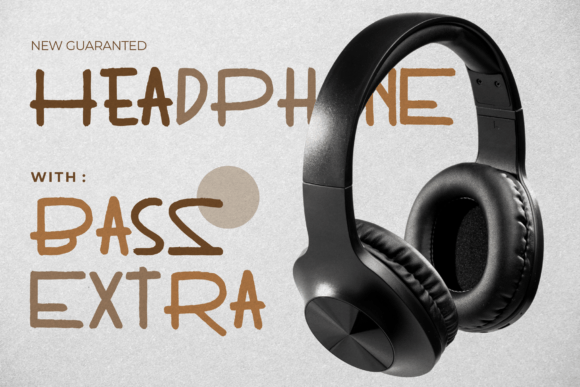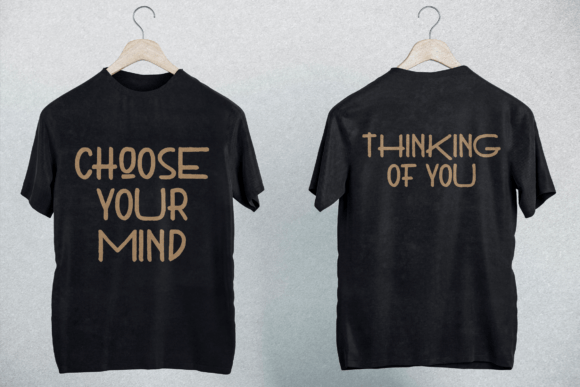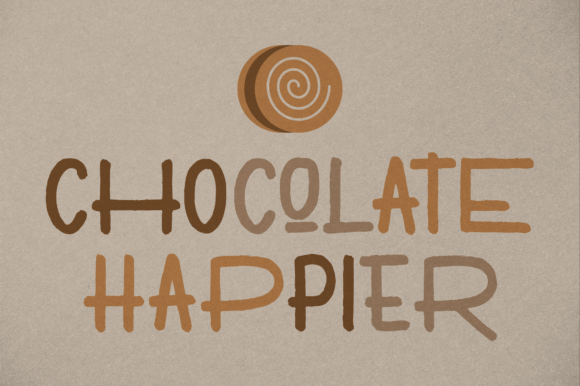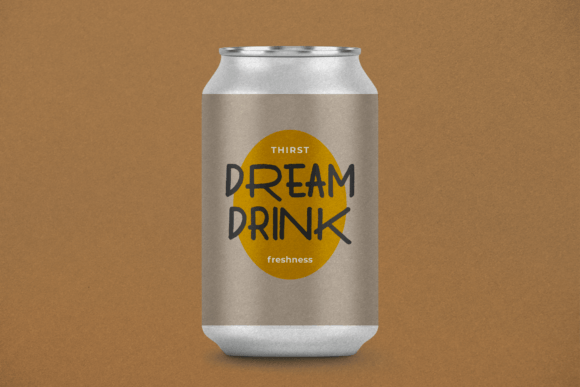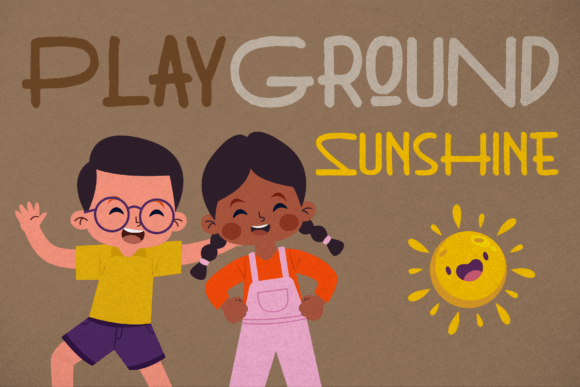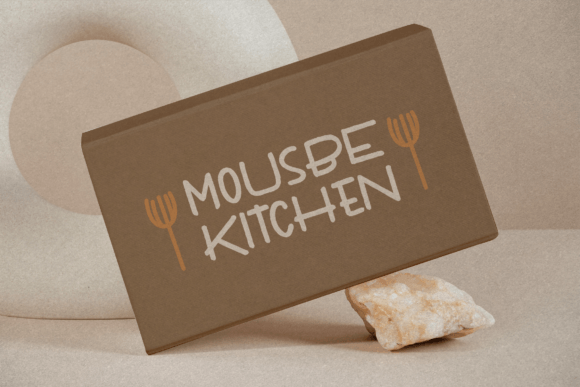
The Ultimate Guide to Choorse Fun Font: Adding a Touch of Whimsy to Your Designs
Have you ever been in the middle of a design project, and suddenly, you’re stuck on finding the perfect font? I recall a particularly frustrating experience while working on a branding project for a trendy new coffee shop. The client wanted a font that was both playful and sophisticated, but everything I tried seemed to fall flat. That’s when I stumbled upon the Choorse Fun Font, and it completely transformed my design. In this article, we’ll dive into the world of Choorse Fun – Rough Sans Serif Display, and explore its features, uses, and alternatives.
An Honest Review of Choorse Fun Font
So, what makes Choorse Fun Font so special? Let’s take a closer look.
What I Love About Choorse Fun Font
- ✨ Unique and quirky personality: Choorse Fun Font has a distinct rough sans serif display style that adds a touch of whimsy to any design.
- ✅ Highly versatile: This font is suitable for a wide range of projects, from logos and branding to homeware designs, product packaging, and more.
- 🎨 Great for creative freedom: With its rough texture and irregular shapes, Choorse Fun Font gives you the flexibility to experiment with different design styles.
While Choorse Fun Font is an excellent choice for many projects, there are a few things to keep in mind:
- ⚠️ Legibility at small sizes: Due to its rough texture, Choorse Fun Font may not be the best choice for body text or small font sizes.
- 🤔 Limited formal applications: This font is best suited for creative and informal projects; it may not be suitable for more formal or corporate designs.
The Backstory Behind Choorse Fun Font
While the origins of Choorse Fun Font are unclear, it’s likely that the designer was inspired by the world of street art and graffiti. The font’s rough texture and irregular shapes evoke a sense of playfulness and creativity.
| Author | Glorytype Studio |
Q: What type of projects is Choorse Fun Font best suited for?
A: Choorse Fun Font is perfect for creative projects like logos, branding, homeware designs, product packaging, and more.
Q: Can I use Choorse Fun Font in digital and print projects?
A: Absolutely! Choorse Fun Font is versatile and can be used in both digital and print projects, from social media graphics to business cards and brochures.